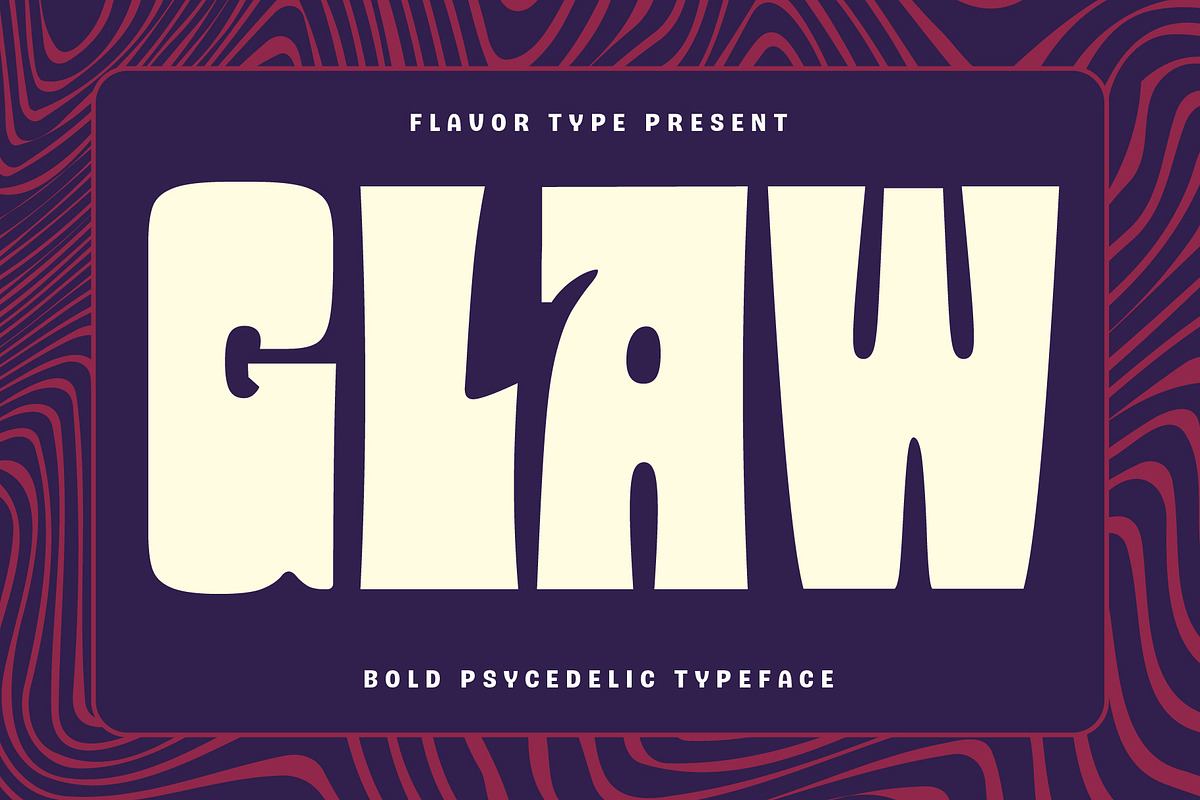
Glaw - Variable Fonts Free Download is a highly versatile and modern typeface that allows for flexibility in design. The variable fonts feature a wide range of weights, widths, and styles, enabling you to adjust the font to suit your specific project needs. This font is perfect for web design, branding, editorial layouts, logos, and any creative work requiring custom typography.
With its clean lines and contemporary design, Glaw adapts to a variety of applications, offering excellent readability and a dynamic look. Whether you're designing for digital platforms, print materials, or branding, the versatility of Glaw makes it an ideal choice for a wide range of design projects.